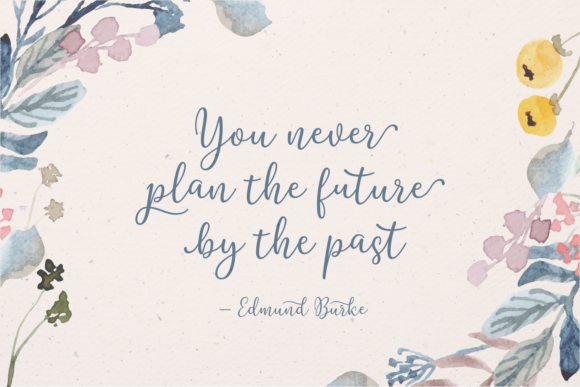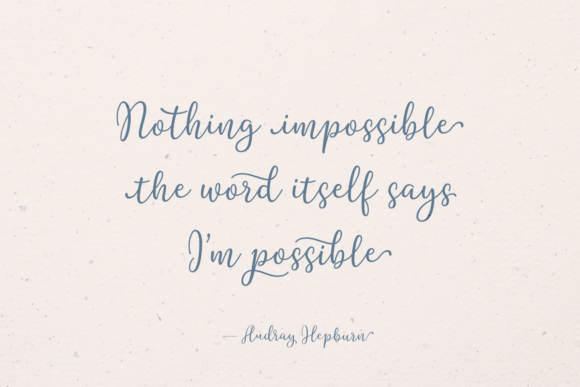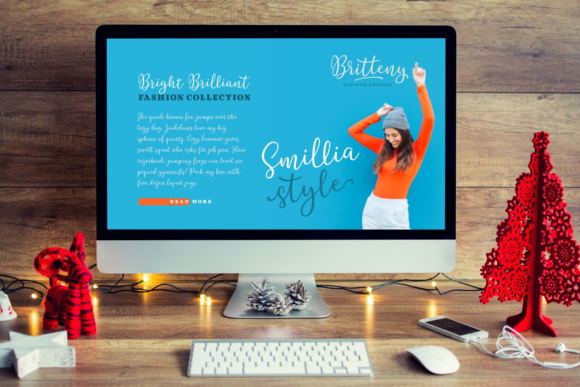
Almost 100% Free Font: A Stunning Script that Pays Homage to Classic Calligraphy
Are you a designer or crafter looking for a unique and bold font to elevate your creative projects? Look no further than the Almost 100% Free Font, a stunning script that pays homage to classic calligraphy. With its bold feel and elegant strokes, this font is sure to inspire your next design venture.
What is Almost 100% Free Font?
The Almost 100% Free Font is a digital script font that is designed to mimic the look and feel of traditional calligraphy. It features bold, sweeping strokes and elegant lettering that is reminiscent of classic calligraphic styles. The font is highly legible and versatile, making it perfect for a wide range of design applications, from logos and branding to invitations and packaging.
Key Features of Almost 100% Free Font
- Bold and Elegant Design: The Almost 100% Free Font features a bold and elegant design that is sure to make a statement in any design project.
- Classic Calligraphy Inspiration: The font pays homage to classic calligraphy, with sweeping strokes and elegant lettering that evoke a sense of tradition and sophistication.
- Highly Legible: Despite its bold design, the Almost 100% Free Font is highly legible, making it perfect for use in a wide range of design applications.
- Versatile: The font is highly versatile, and can be used in a variety of design contexts, from logos and branding to invitations and packaging.
How to Use Almost 100% Free Font in Your Design Projects
The Almost 100% Free Font is a highly versatile font that can be used in a wide range of design applications. Here are a few ideas for how you can use this stunning script font in your next design project:
- Logos and Branding: Use the Almost 100% Free Font to create a bold and elegant logo or brand identity that is sure to make a statement.
- Invitations and Stationery: The font is perfect for use in invitations, stationery, and other paper goods, where its elegant design can add a touch of sophistication and class.
- Packaging and Product Design: Use the Almost 100% Free Font to add a bold and elegant touch to your packaging and product design.
- Web Design: The font can also be used in web design, where its bold and elegant design can add a touch of sophistication and style to your website or blog.
The Almost 100% Free Font is a stunning script font that pays homage to classic calligraphy. With its bold feel and elegant strokes, this font is sure to inspire your next design venture. Whether you’re a designer or crafter, this font is a must-have for anyone looking to add a touch of sophistication and style to their design projects.